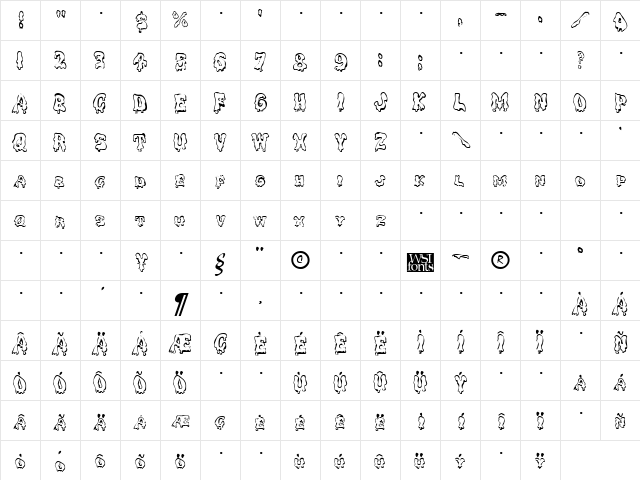
GhoulyCaps Regular Free Font
GhoulyCaps Regular
GhoulyCaps Family
GhoulyCaps Regular
Complete GhoulyCaps Regular glyph index. Displaying only characters natively supported by GhoulyCaps Regular font.
Design Context for GhoulyCaps
GhoulyCaps is a composed and adaptable typeface that performs quietly and consistently across a wide range of design contexts.